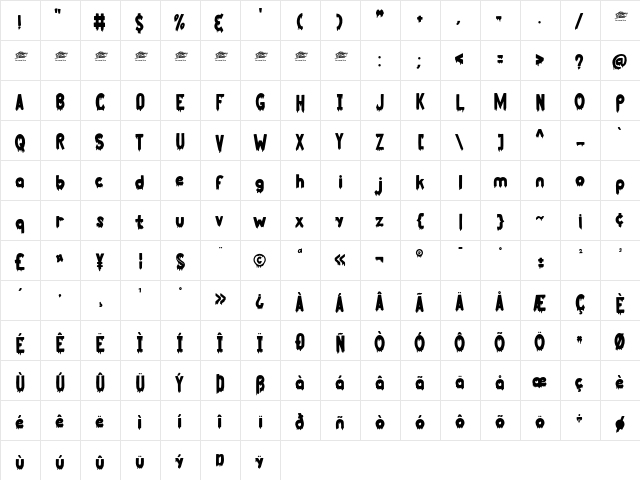
Smelly Blood - Personal Use Regular
Design Context for Smelly Blood - Personal Use Typeface
Smelly Blood - Personal Use leans into the macabre with letterforms designed to disturb and intrigue in equal measure.
Ideal for Halloween projects, horror film titles, haunted house signage, and dark editorial design.
Font Pairing: Pair with a clean neutral sans-serif for body copy to let Smelly Blood - Personal Use's character lead without overwhelming the composition.
Pro Tip: Smelly Blood - Personal Use works best as a headline or focal element. Pair it against plain, neutral body text to amplify the contrast.